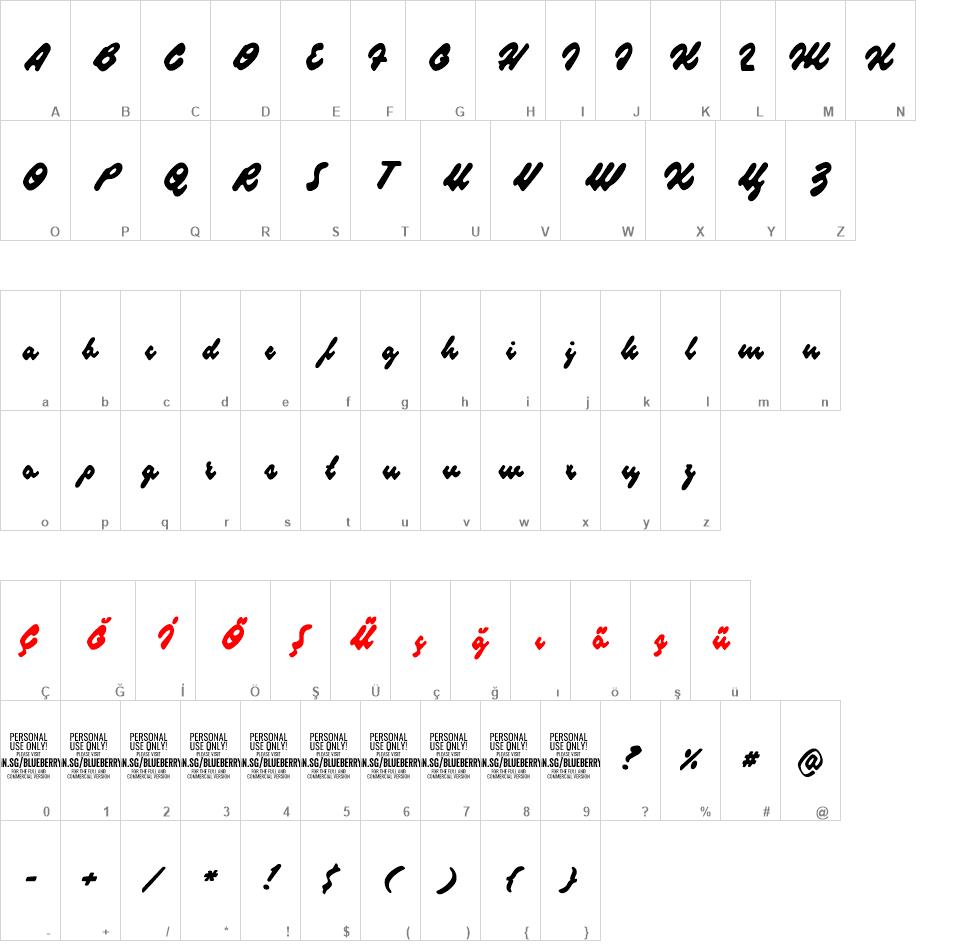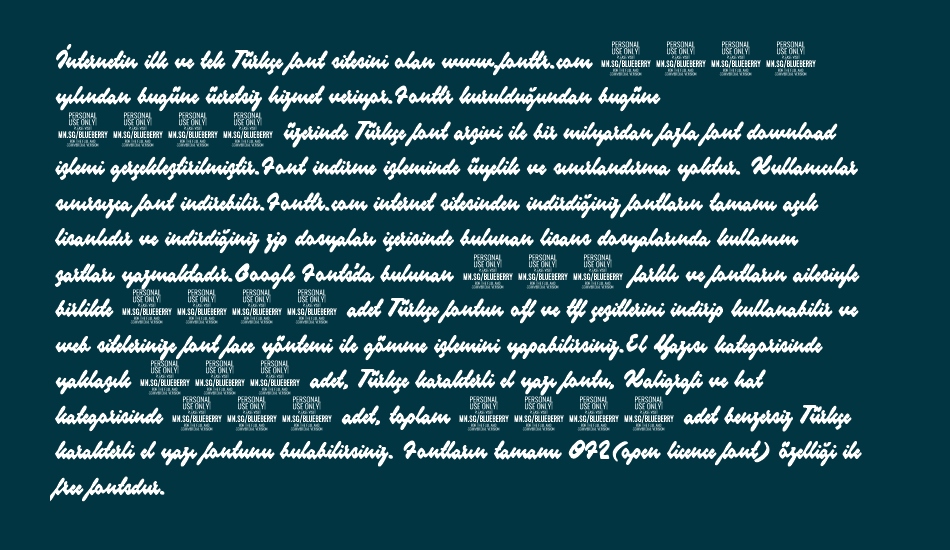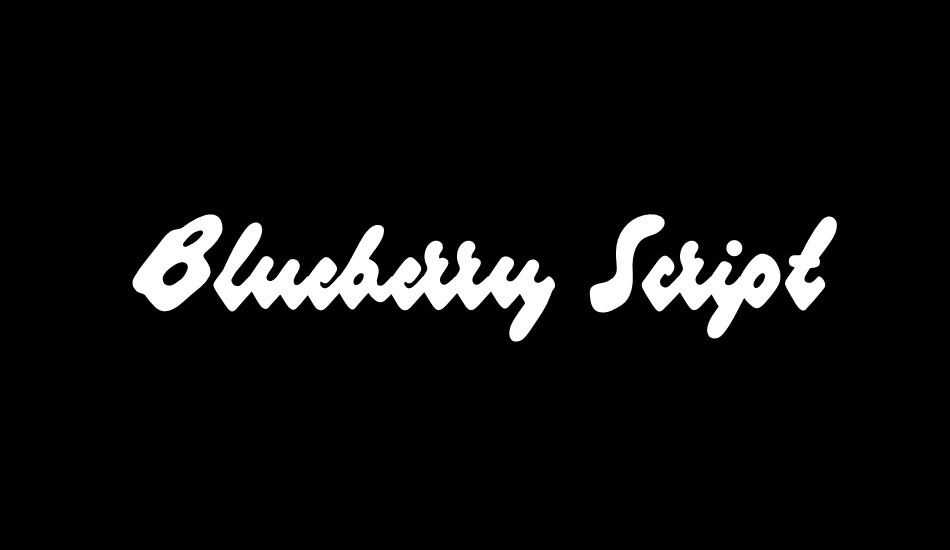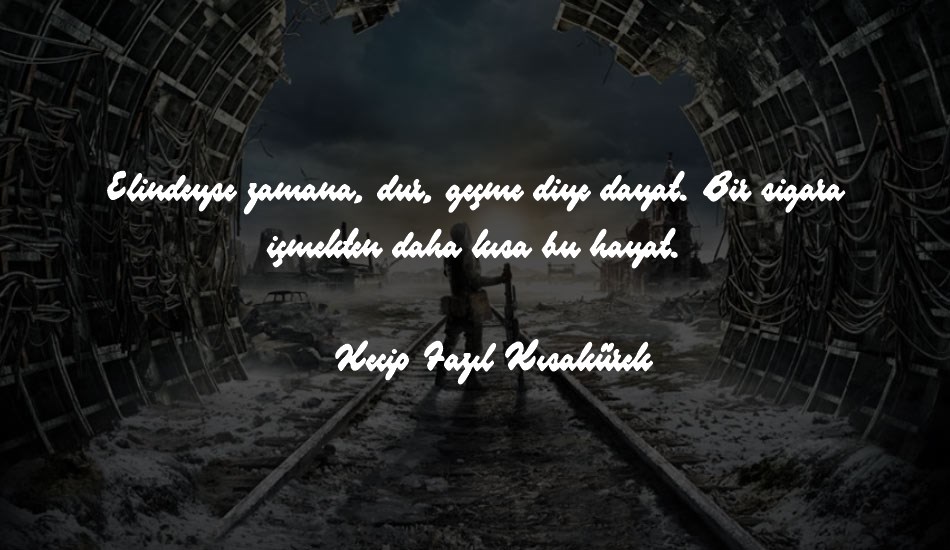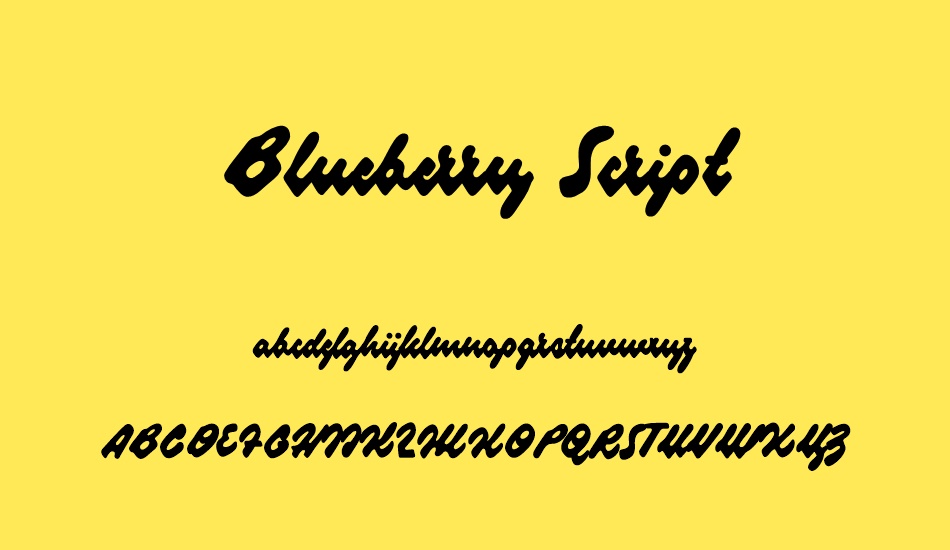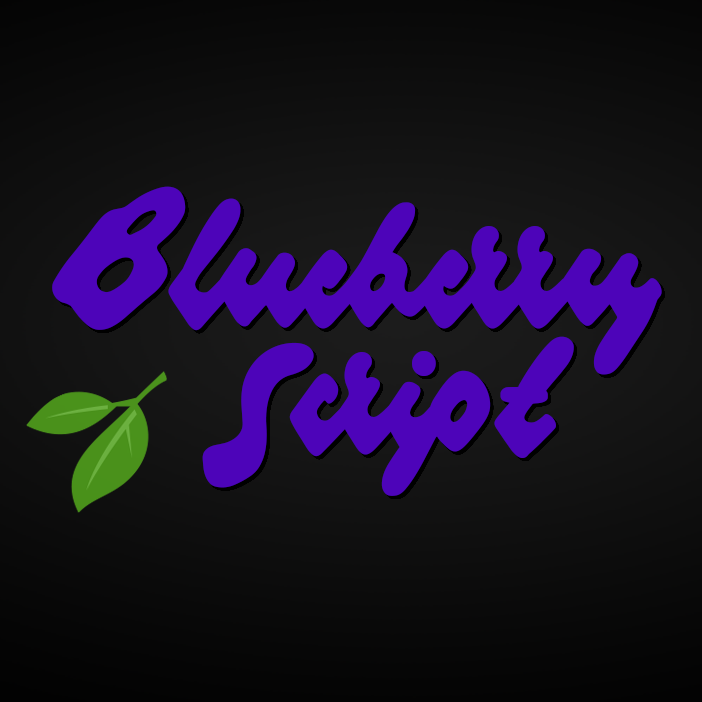
Blueberry Script font
Blueberry Script is a bold and characteristic script typeface.
It supports hundred of Latin languages, and has several ligatures to maximize the letters' flow.
The font is designed and created by Noah Kinard and M?ns Greb?ck.